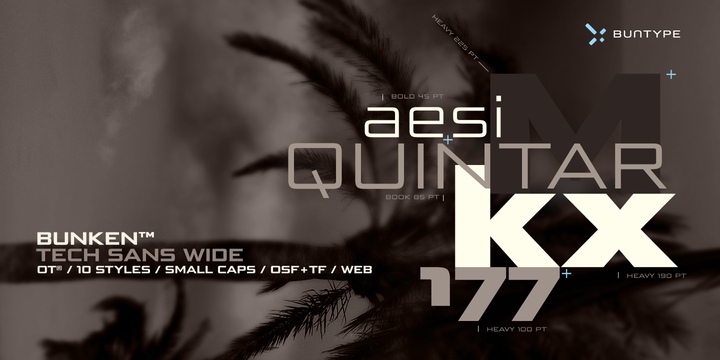
Bunken Tech Sans Pro Wide Font
Bunken Tech Sans Pro Wide Font is perfectly suited for technology company branding, software interface design, digital product packaging, tech conference signage, futuristic advertising campaigns, cybersecurity marketing materials, AI company logos, tech startup presentations, and cutting-edge digital communications.
What makes Bunken Tech Sans Pro Wide Font so exciting is its commanding technological presence and expansive character width that creates maximum visual impact while embodying the bold innovation of modern technology industries through every precisely engineered letterform. This powerful typeface combines the authority of wide proportions with the sophistication of contemporary sans-serif design, creating typography that demands attention while maintaining exceptional readability across all digital platforms. The font's distinctive expanded character shapes and technical precision create an atmosphere of technological advancement and digital expertise that resonates with tech-savvy audiences who appreciate cutting-edge design and innovative solutions. Bunken Tech Sans Pro Wide Font stands out through its ability to convey technological authority, digital innovation, and professional competence, making it perfect for projects that need to establish credibility in technology markets while communicating with audiences who value advanced digital solutions and technological excellence.
The Bunken Tech Sans Pro Wide Font family includes Light, Regular, Medium, Bold, and Black weights, each maintaining the font's distinctive wide technological character while providing comprehensive design flexibility for various tech applications. The family also features extended character sets and technical symbols that enhance the font's professional appeal and provide complete solutions for sophisticated technology branding projects.
The technical superiority of Bunken Tech Sans Pro Wide Font includes comprehensive character sets supporting multiple languages, advanced OpenType features, and precision-optimized spacing designed specifically for digital applications and high-tech communications. The font maintains exceptional performance across all screen resolutions and print applications while providing the bold presence needed for impactful technology branding that commands attention in competitive markets.
Whether you're designing tech company identities, creating software marketing materials, developing digital product interfaces, or building comprehensive technology brands that require commanding visual presence and technical sophistication, Bunken Tech Sans Pro Wide Font delivers the perfect combination of technological authority and contemporary functionality that makes your projects powerfully compelling for modern tech-focused audiences.